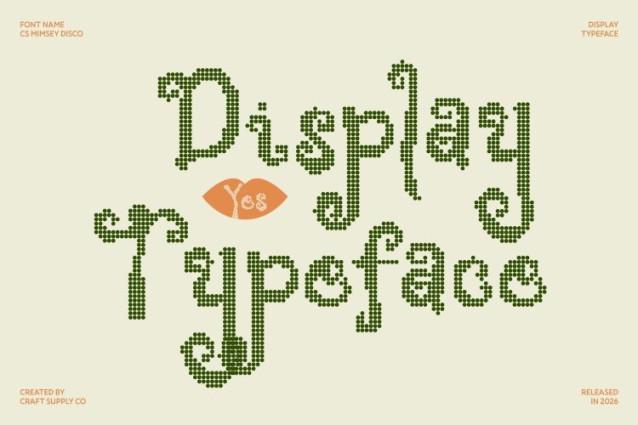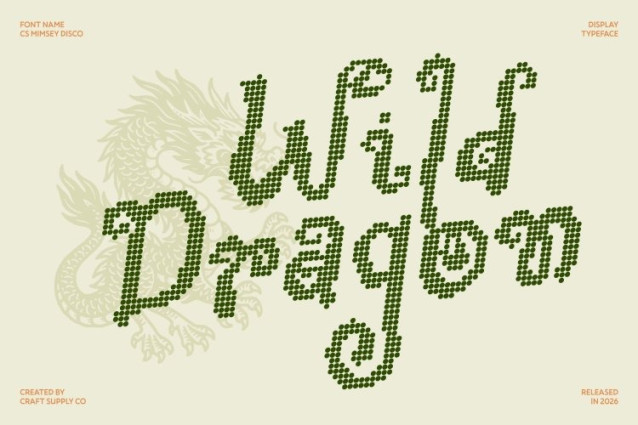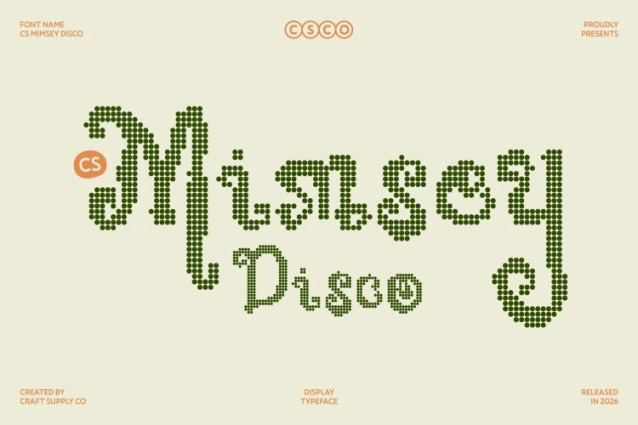
CS Mimsey Disco Font
CS Mimsey Disco Font – This reimagines its decorative serif elegance with a radiant disco twist. The curved serif forms and intricate fantasy-inspired details are enhanced with shimmering dotted accents, creating the illusion of magical lights dancing across each letter. This blend of whimsical storytelling and disco sparkle makes the font feel enchanting, vibrant, and full of personality.
Playful Characters with Magical Rhythm
The graceful curves and imaginative shapes maintain their fairy-tale charm while gaining lively, glowing textures. Each character feels animated, as if illuminated by tiny lights on a magical stage. This playful rhythm transforms text into a captivating visual element that feels both dreamy and festive.
Fantasy Details with Disco Glamour
Intricate decorative touches are paired with radiant dot patterns that add depth, movement, and celebratory shine. The result is a typeface that balances fantasy elegance with cheerful energy perfect for designs that want to feel magical yet lively.
Perfect for Imaginative and Playful Designs
This font shines in children’s books, fairy-tale covers, party invitations, whimsical branding, merchandise, posters, and creative digital media. Whether used for storytelling projects or joyful event graphics, it brings a sense of wonder and celebration to every composition.